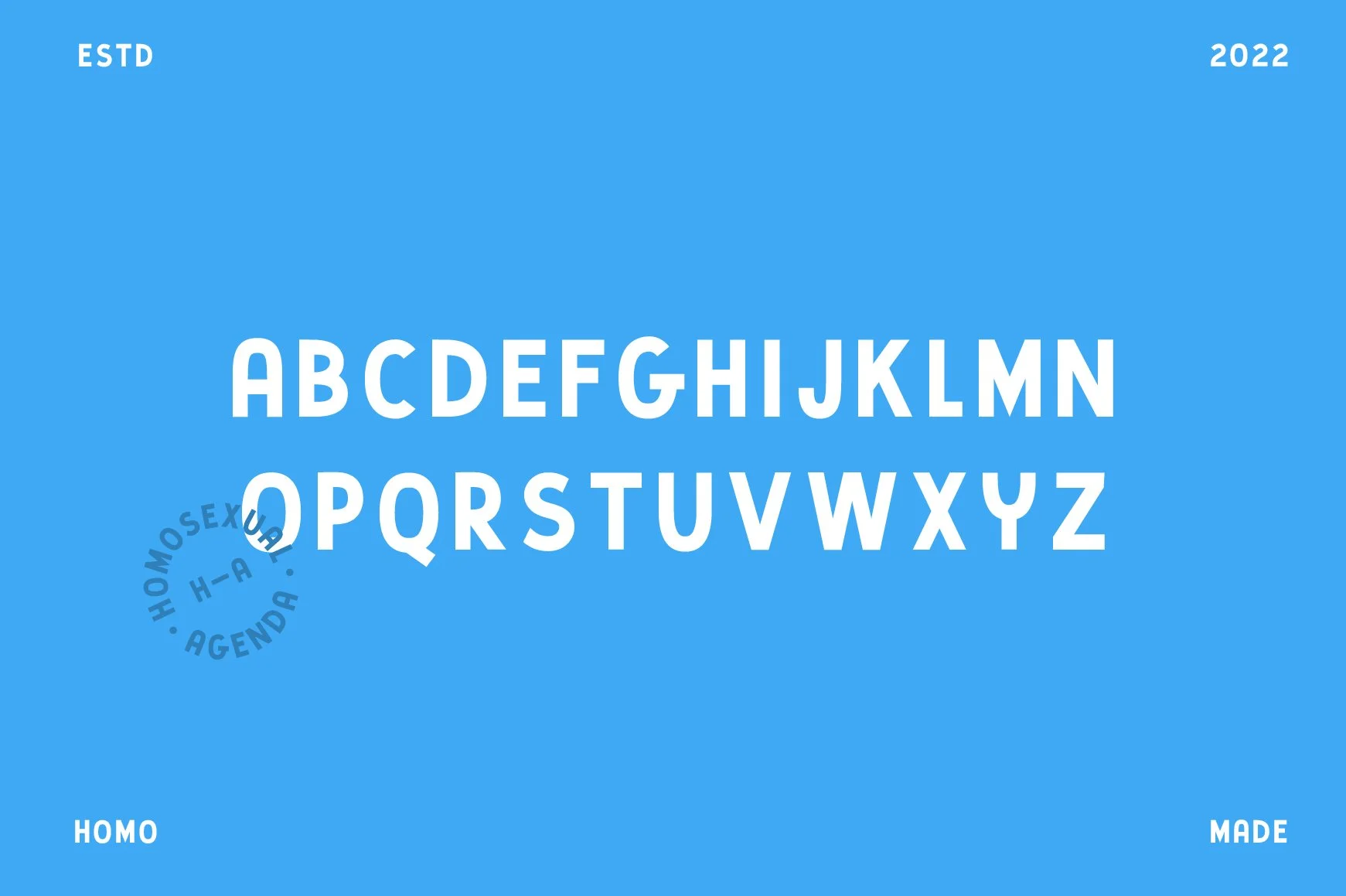
Homosexual Agenda is here and itβs queer πββοΈ. A vintage font inspired by the sign-painting sans serif style. Who says the gayest font has to be scripty and whimsical? Gay, from top to bottom. It includes two styles: regular and outlined. Snag your copy of the Homosexual Agenda today and get creative.